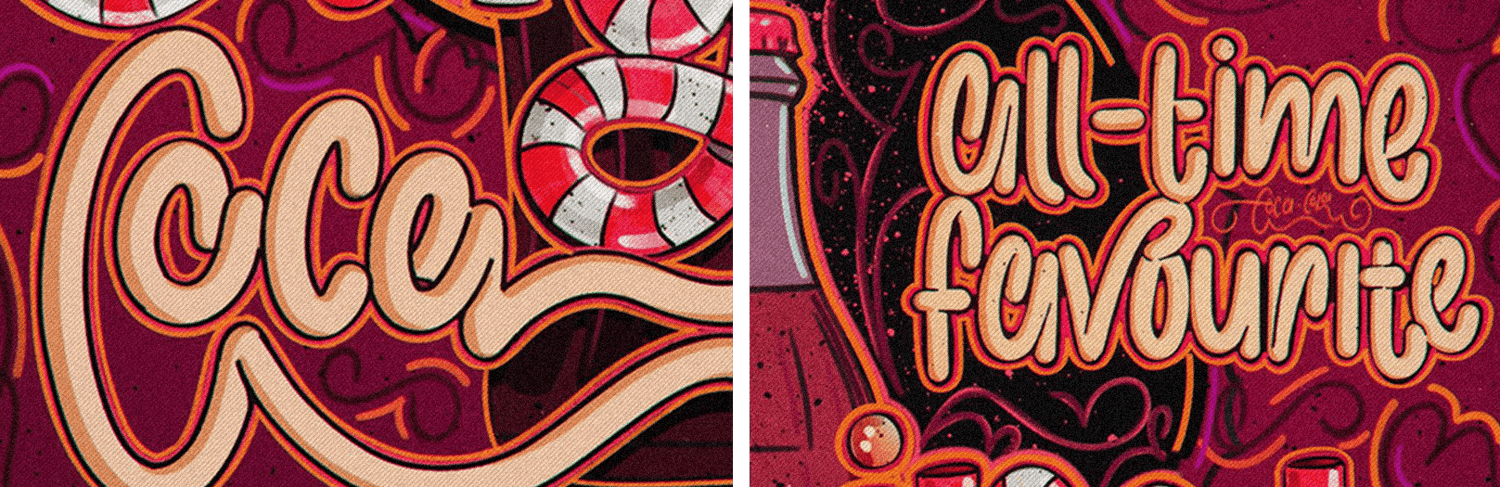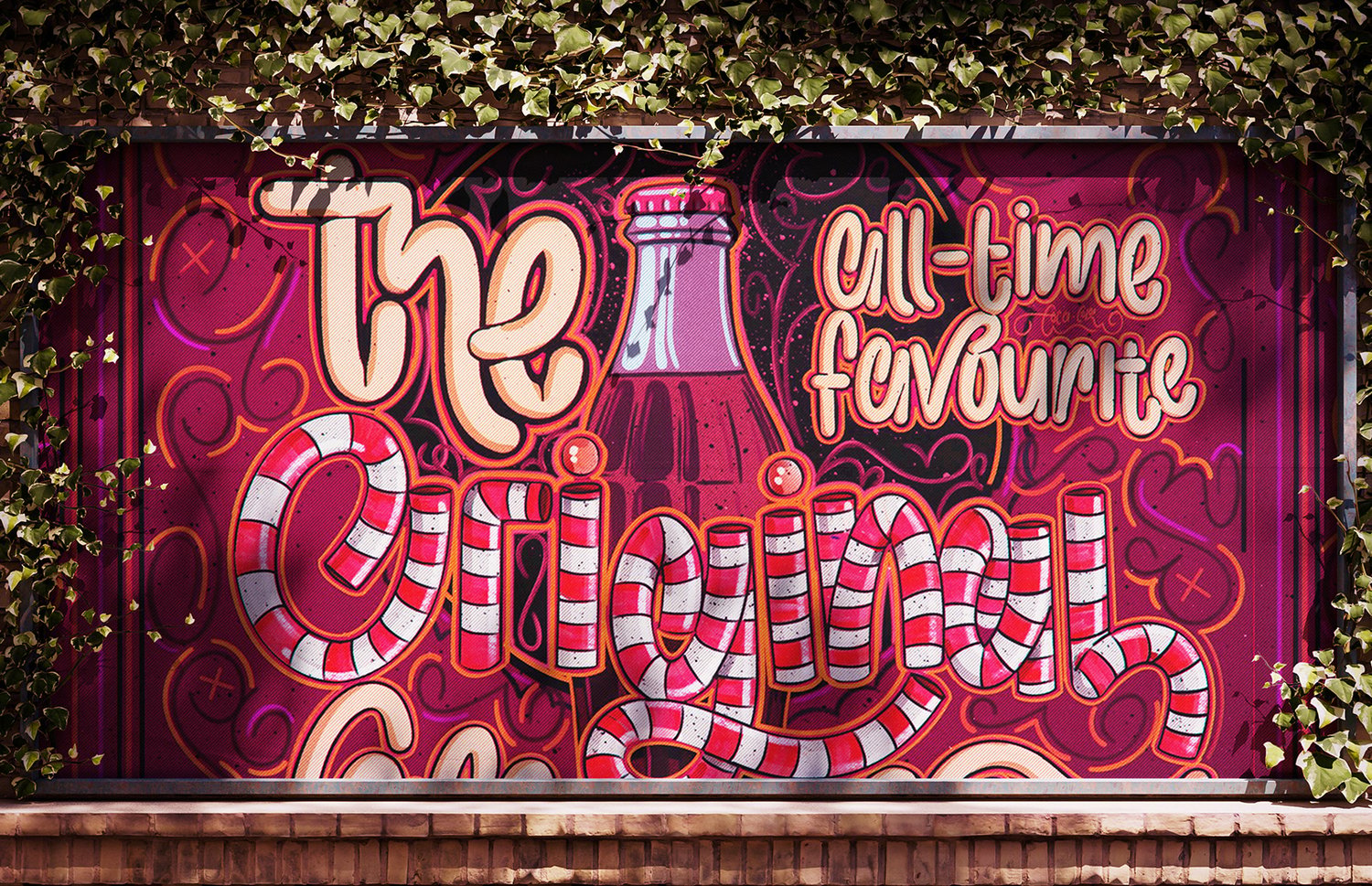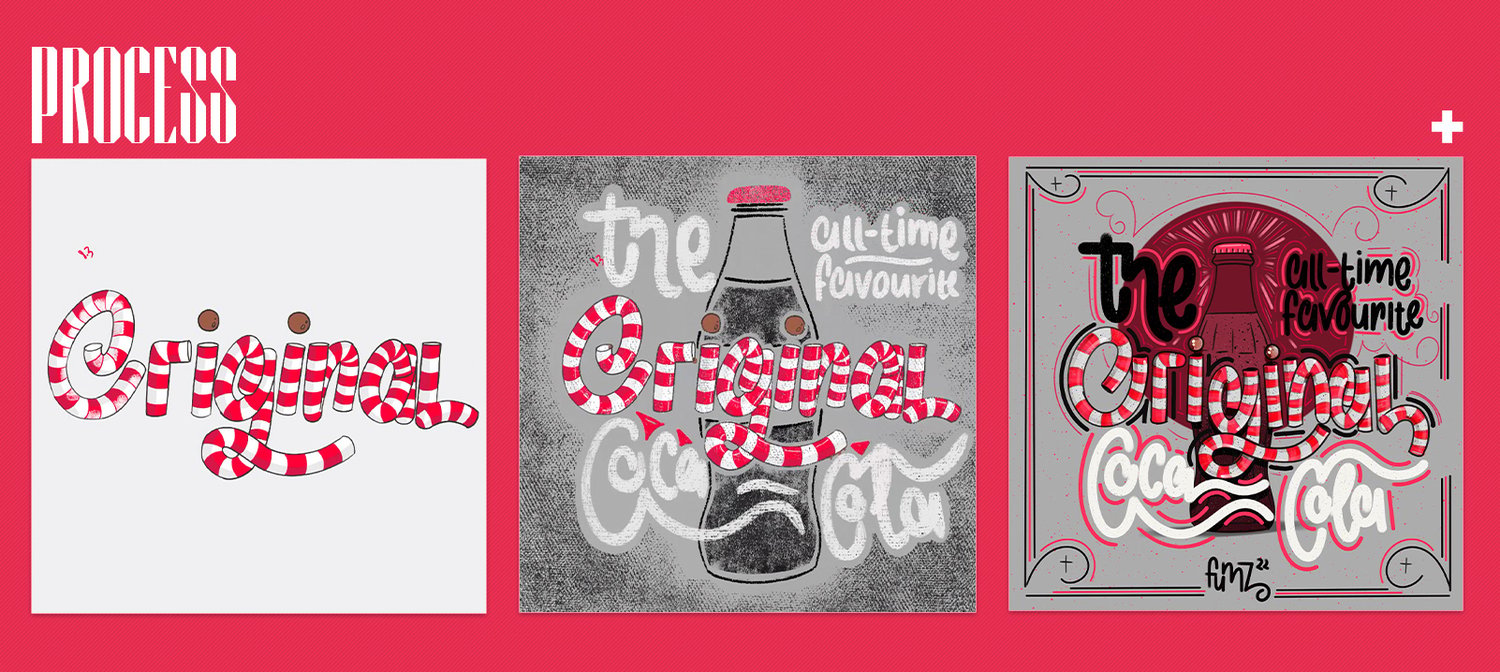
Original Coca Cola | Hand Lettering
This is an experimental design i created inspired by arguably the most ubiquitous beverage brand in the world. I found myself playing around with the idea of using the classic candy-cane-style straw for lettering which later led to me musing over the classic Coca Cola bottle.
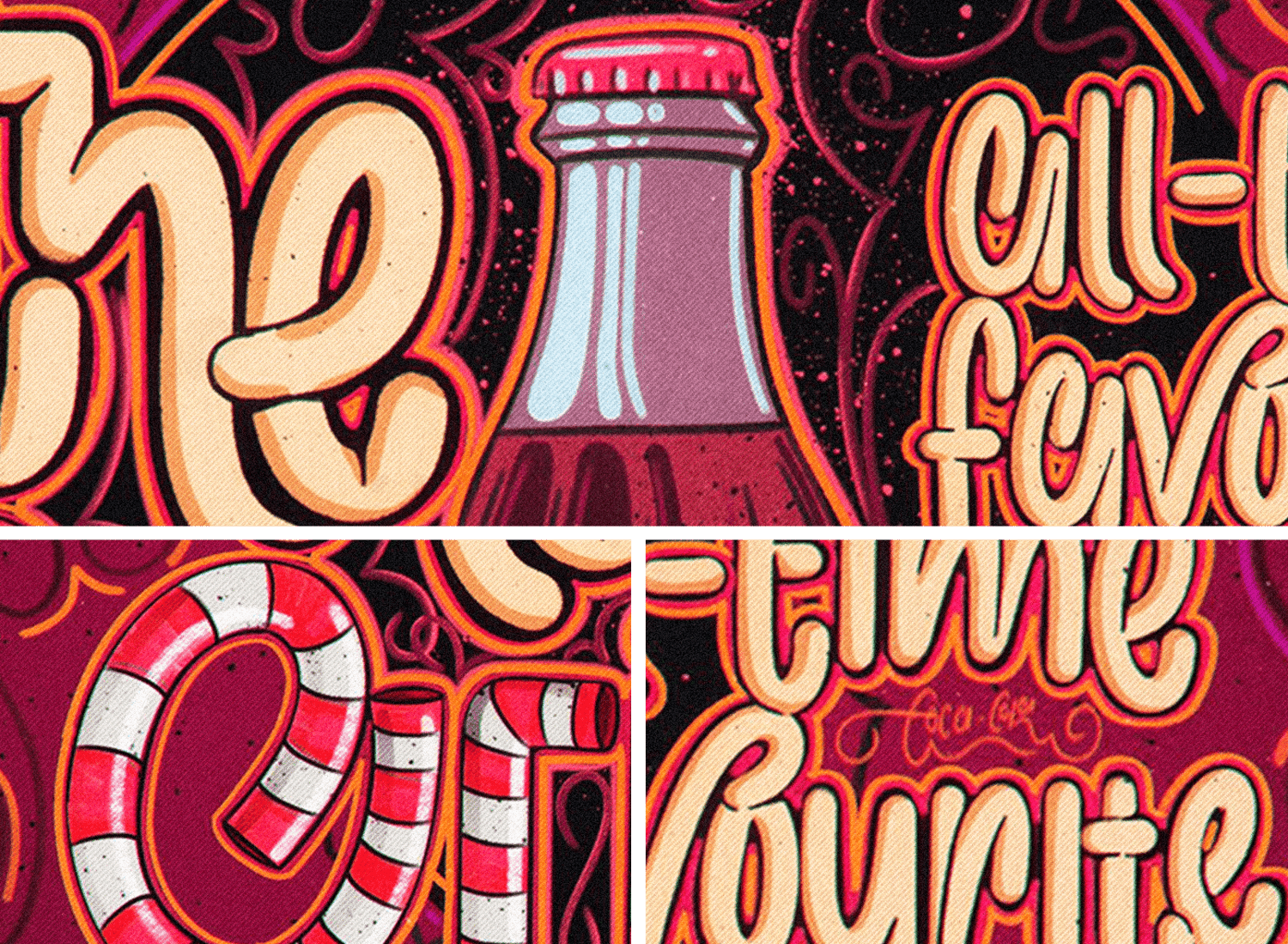
I wound up doing some lettering around it with the bottle taking center stage.
I executed this piece over quite a number of iterations and this is the final piece. The layout uses all script lettering stylized with volume and texture. The design is mean to capture the rich, complex and pallete-gasmic taste of Coca Cola.